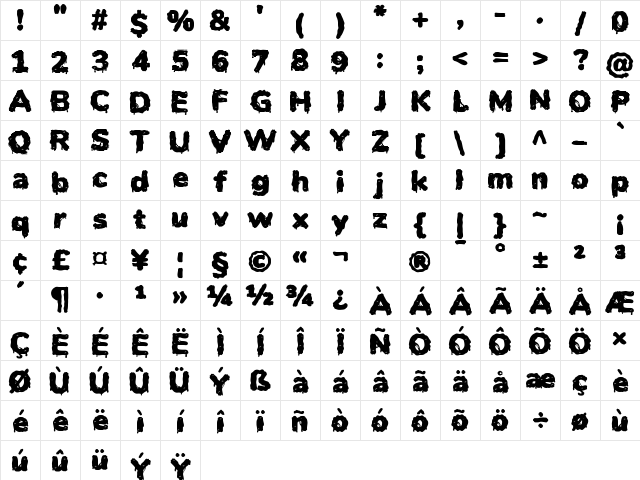
Halloween Nightmare Regular Free Font
Halloween Nightmare Regular
Foundry: Wellscript Studio
Designer: Welianto
Design Context for Halloween Nightmare
Halloween Nightmare is a composed and adaptable typeface that performs quietly and consistently across a wide range of design contexts.